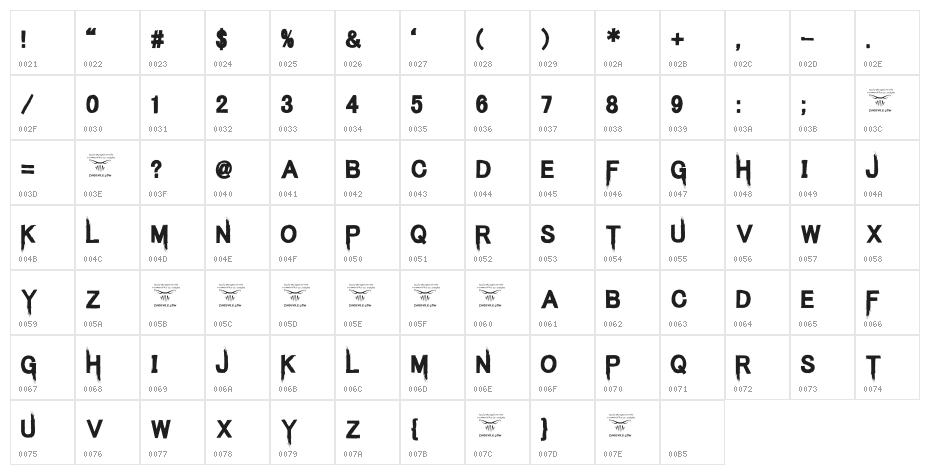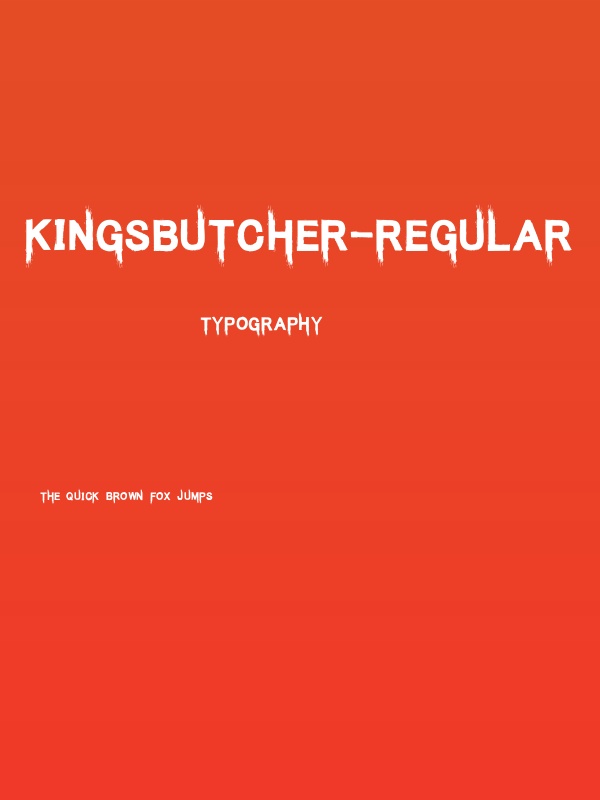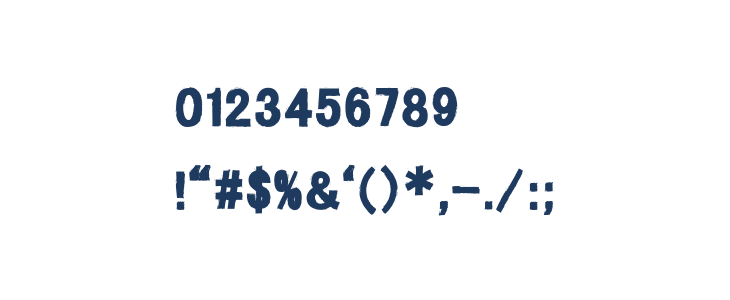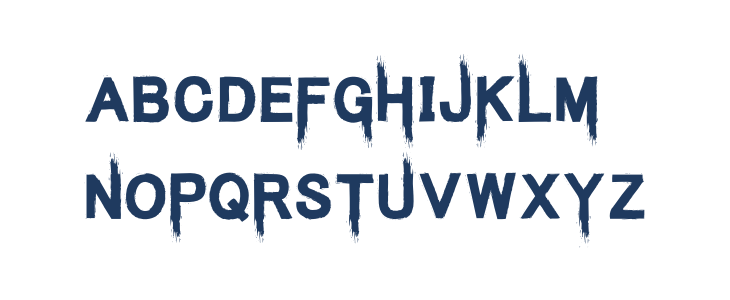
KingsButcher-Regular Font
KingsButcher-Regular Description
This font features a bold and rugged style with a distressed, grunge-like appearance. The characters have a unique texture that gives the impression of being worn or eroded, adding a sense of edginess and rawness. The uppercase and lowercase letters maintain a consistent height, while the numbers and special characters follow the same distressed theme. This font is designed to stand out and make a bold statement, perfect for projects that require a touch of rebellion or an urban aesthetic.
| Proposed Projects | Ideal for music album covers, posters, urban-themed branding, or any project needing a bold, edgy look. |